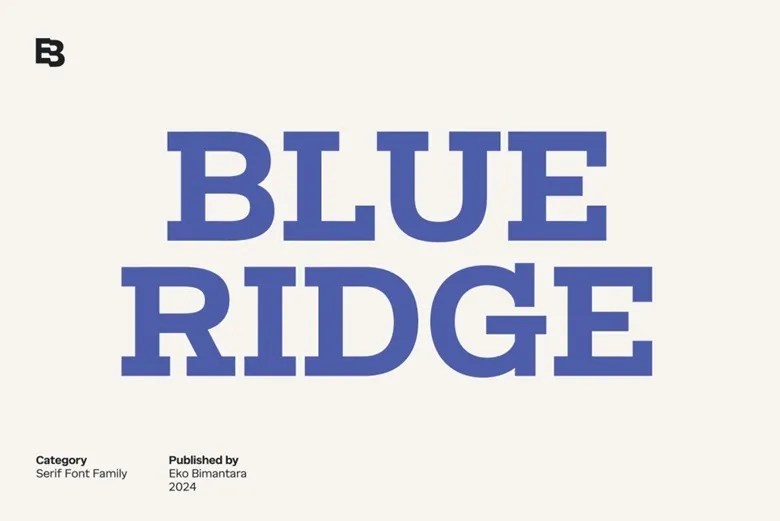
Blue Ridge Font
Blue Ridge Font is a bold and confident slab serif typeface crafted by Eko Bimantara. With its wide characters and strong, bold serifs, this font is designed to make a statement, making it an excellent choice for creating attention-grabbing prints. Its robust presence ensures that your text stands out, whether used in headlines, posters, or any design that demands visibility.
This typeface is versatile enough to cater to both business and personal projects. Whether you’re designing promotional materials, branding assets, or personal stationery, Blue Ridge offers the boldness needed to convey your message effectively. Its strong character complements various design styles, making it suitable for a wide range of applications.
Blue Ridge Font is not only visually appealing but also functional, enhancing the overall aesthetic of any project. The font’s clarity and strength provide a solid foundation for your design, ensuring that your content is both legible and impactful. This makes it an ideal choice for designers looking to create memorable visuals.